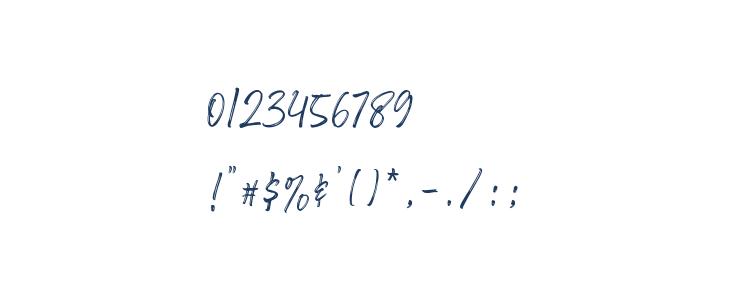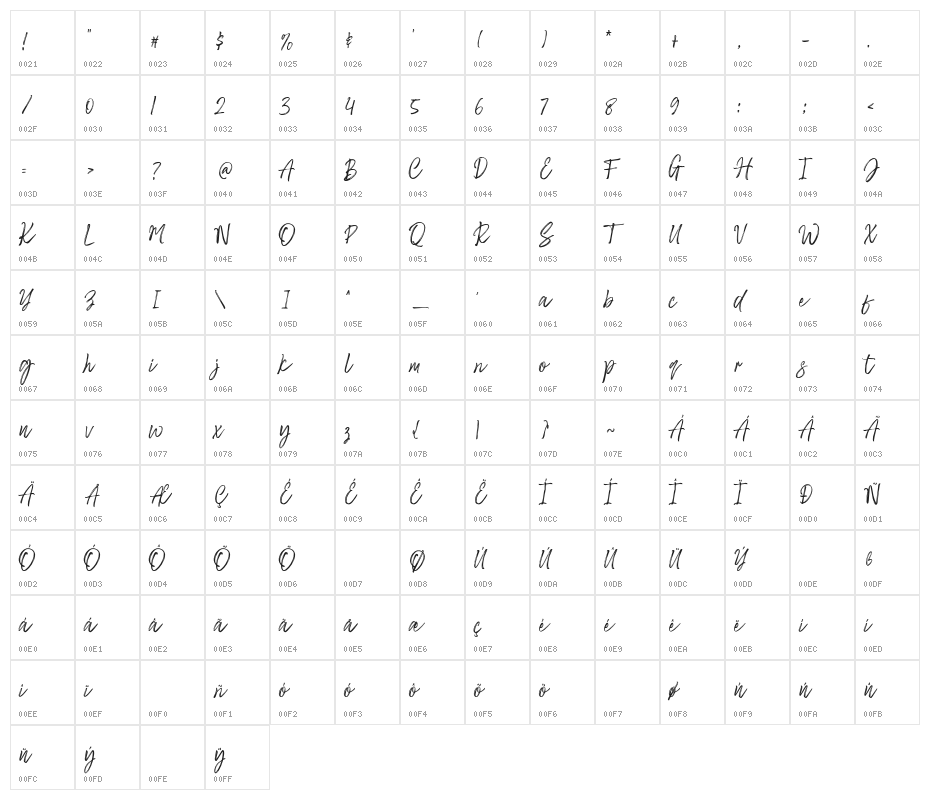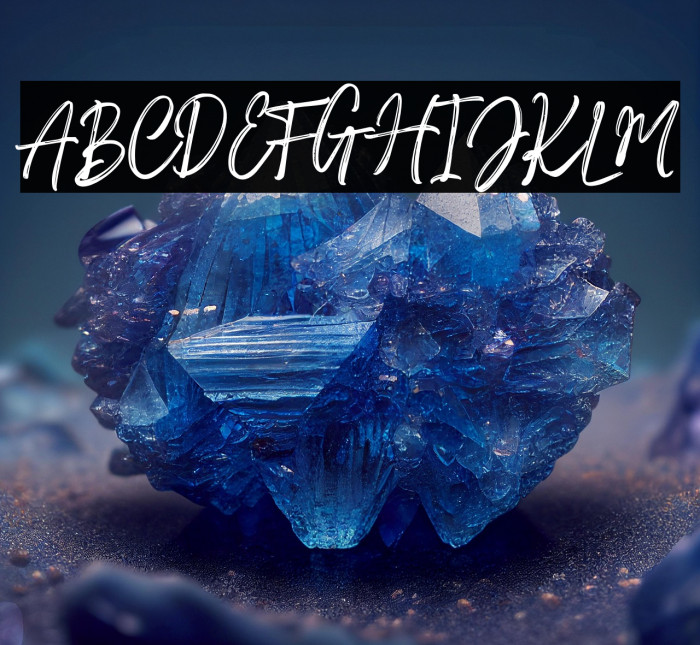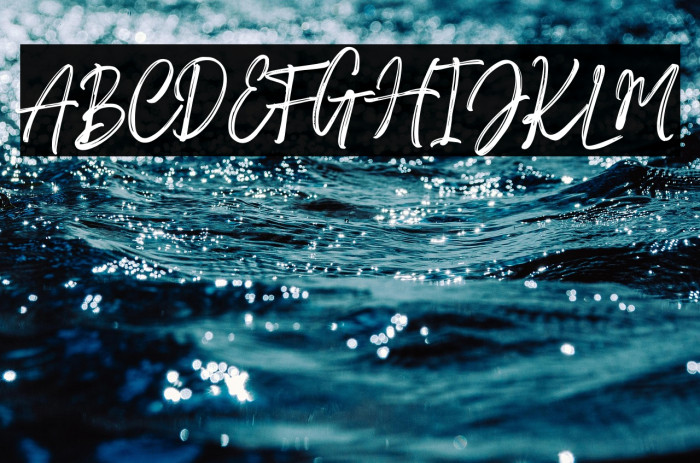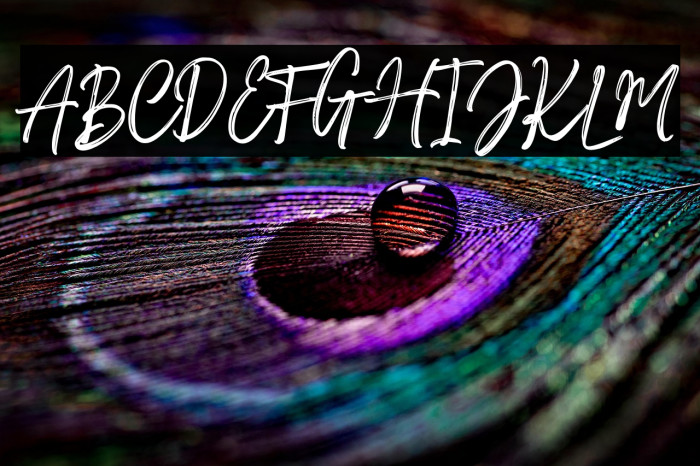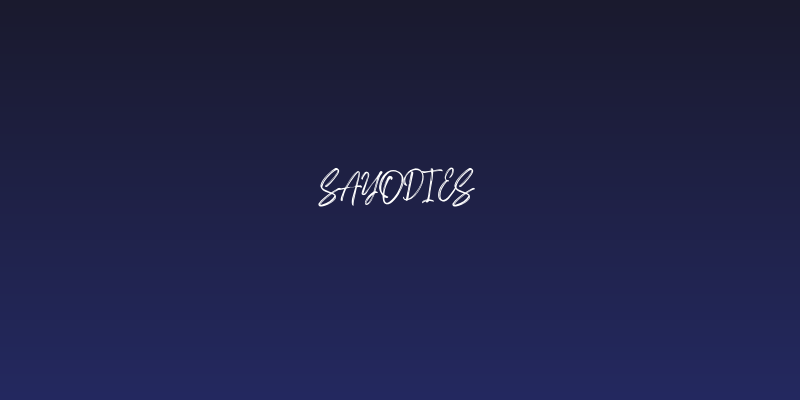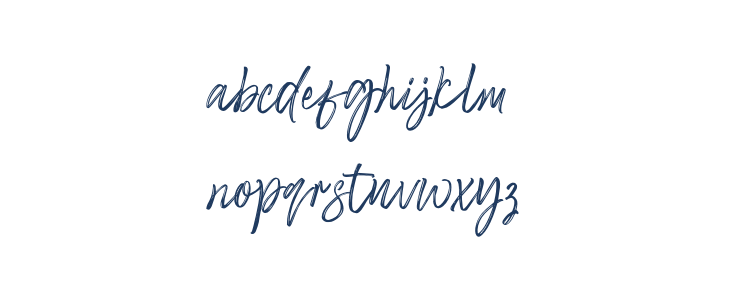
Sayodies Font
Sayodies Description
This font exudes a dynamic and elegant handwritten style, characterized by its fluid and cursive strokes. The letters are interconnected, creating a seamless flow that mimics natural handwriting. The uppercase letters are bold and slightly larger, providing a striking contrast to the more delicate lowercase letters. The numerals and special characters maintain the same cursive style, ensuring consistency across all characters. The overall appearance is both sophisticated and approachable, making it suitable for a variety of creative applications.
| Overall Style | Elegant, Handwritten |